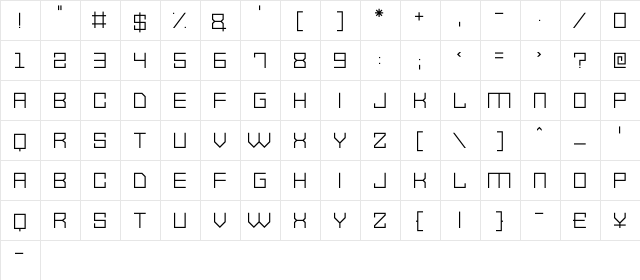
Vector Waves Regular Font Preview
Vector Waves Regular
Vector Waves Regular Font Details
Design Context for Vector Waves Typeface
Vector Waves offers clean, dependable letterforms without strong stylistic allegiance, making it a practical choice for designers who need flexibility.